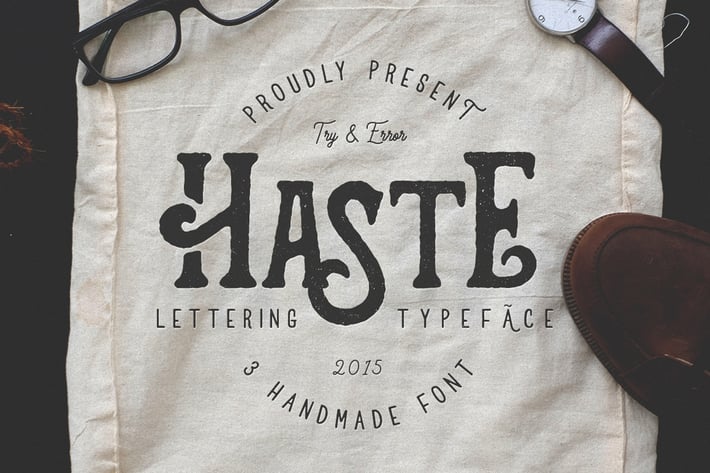
Haste - 3 Handmade Font
Every person has a desire to make a combination of letters or lettering. but not everyone has the skills to make a handlettering and time to learn. for that I make three handmade fonts for you who need lettering to design your project needs.